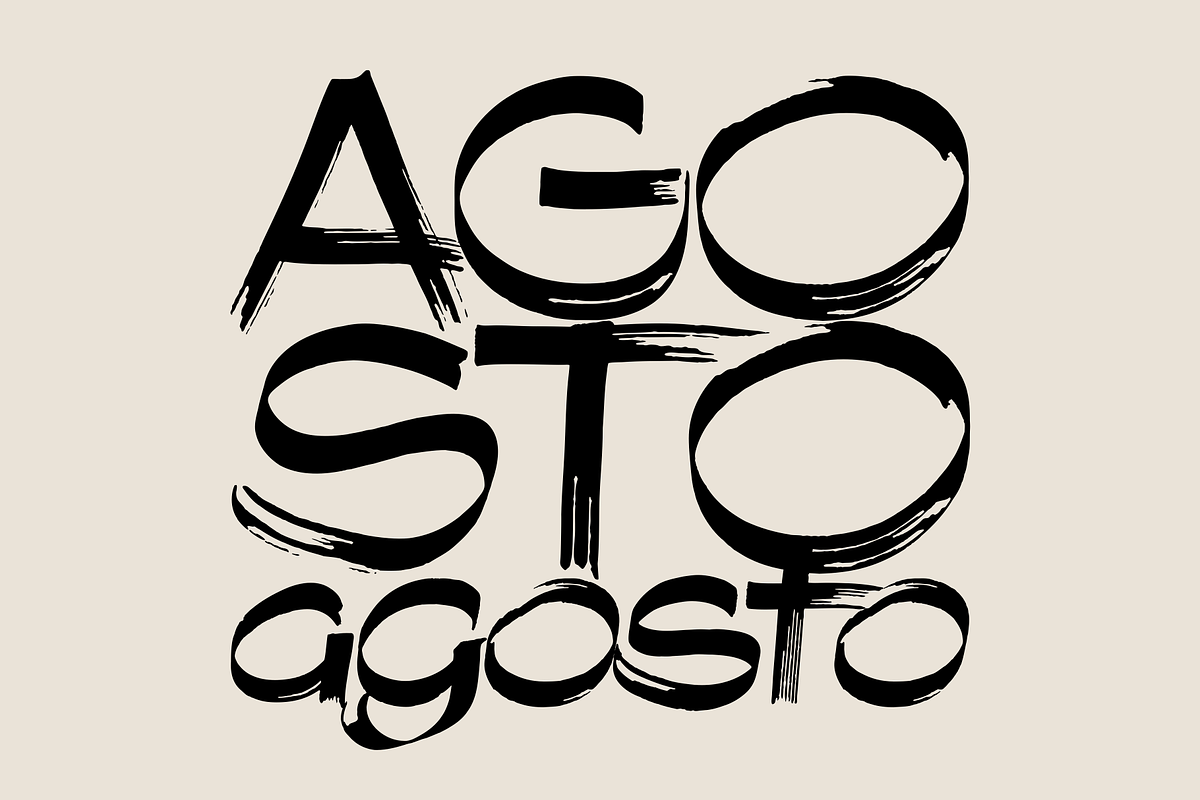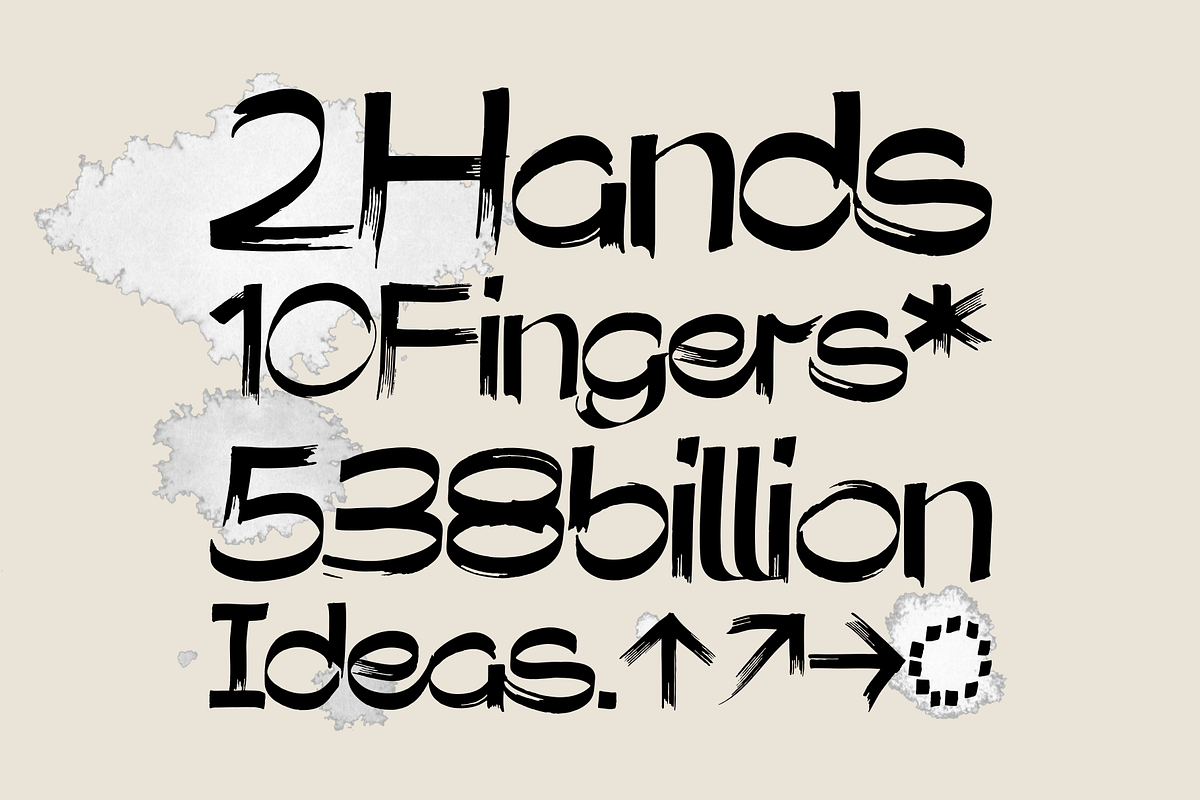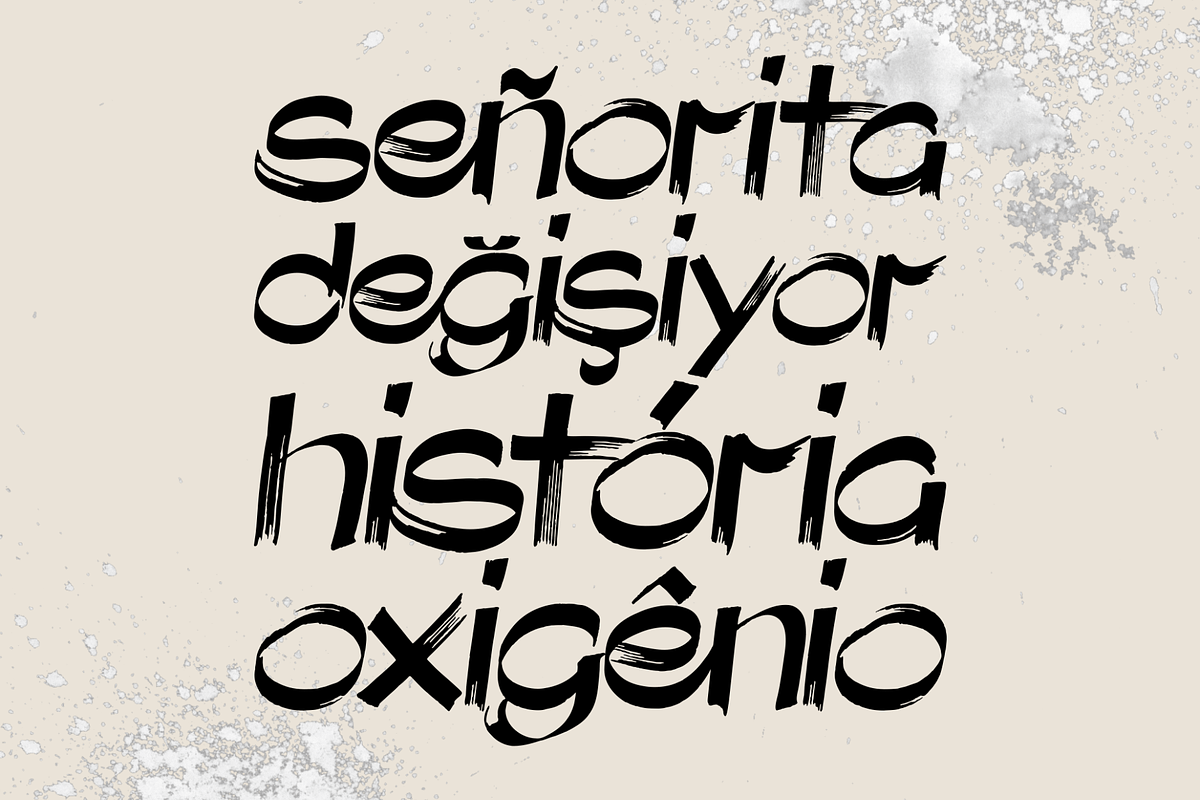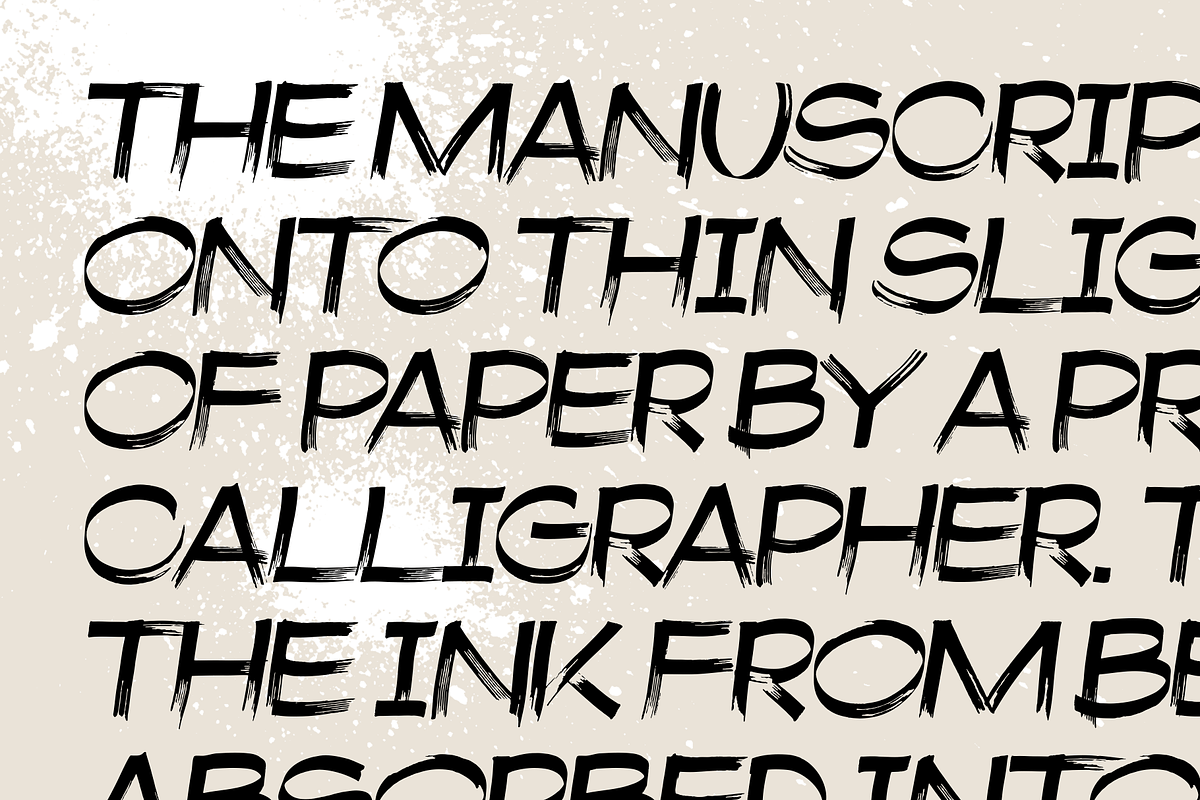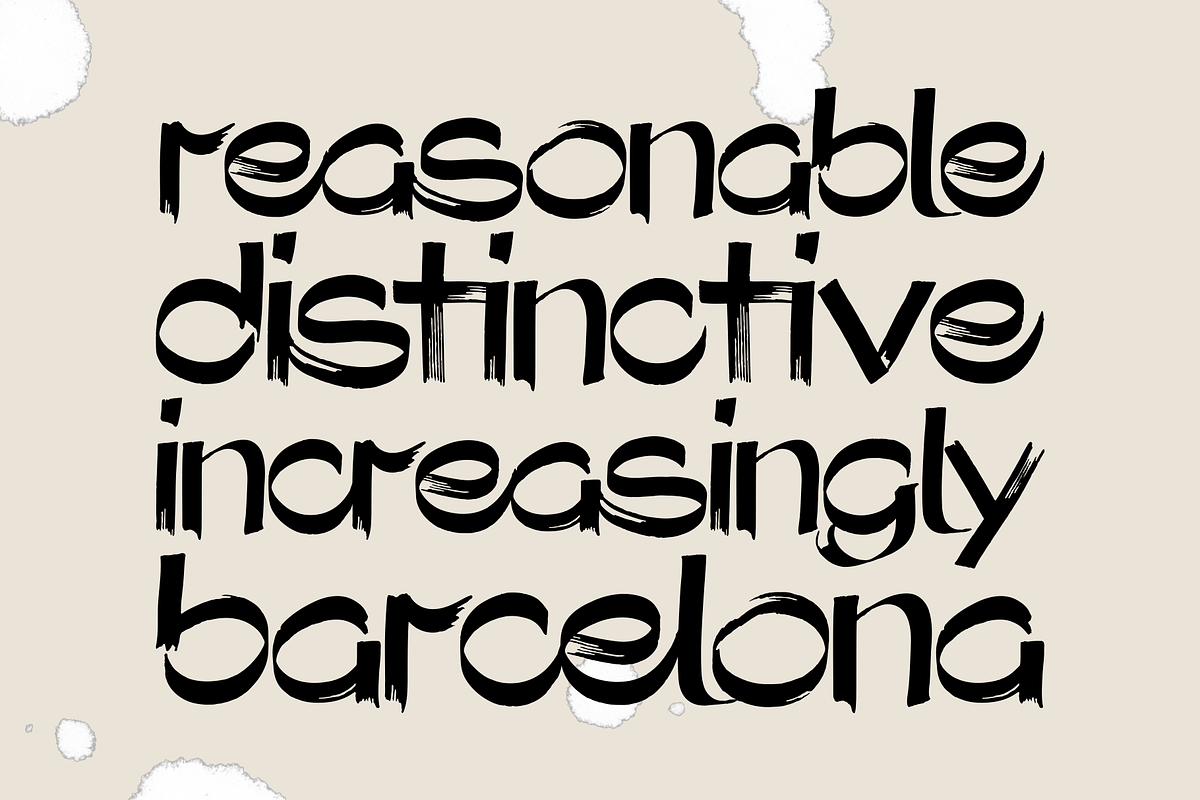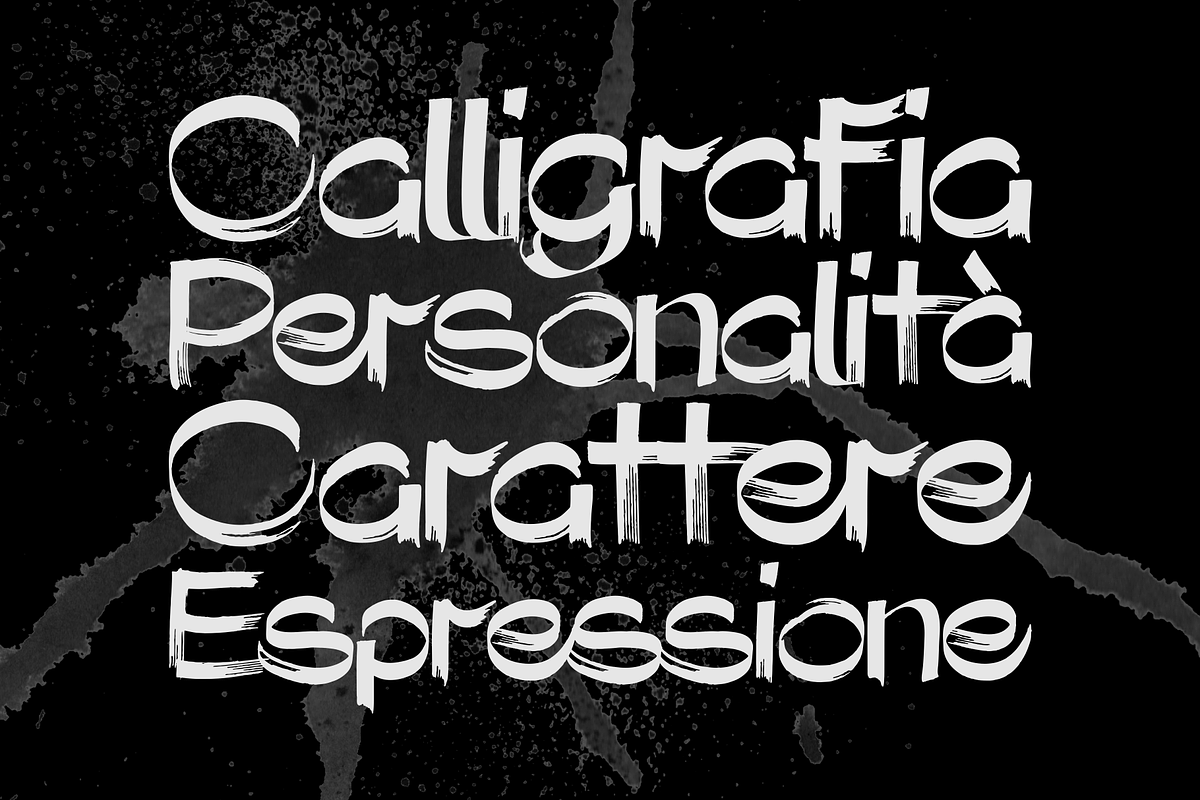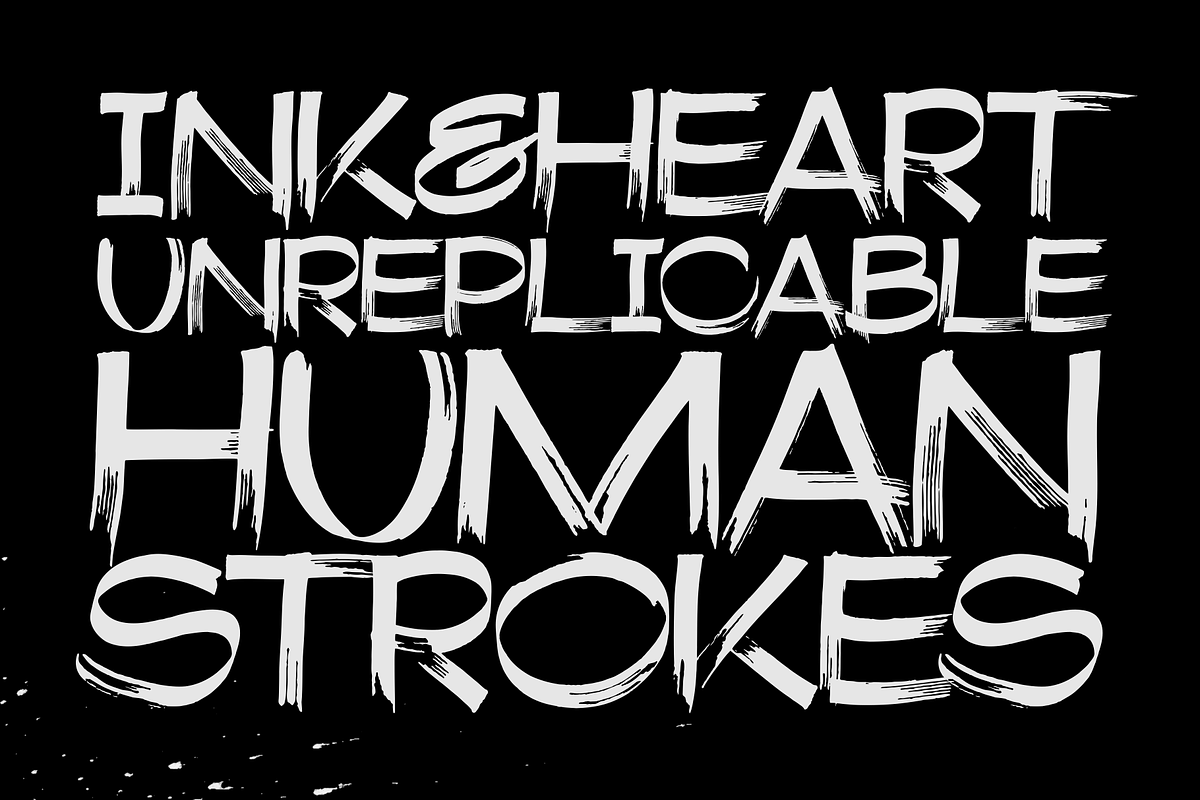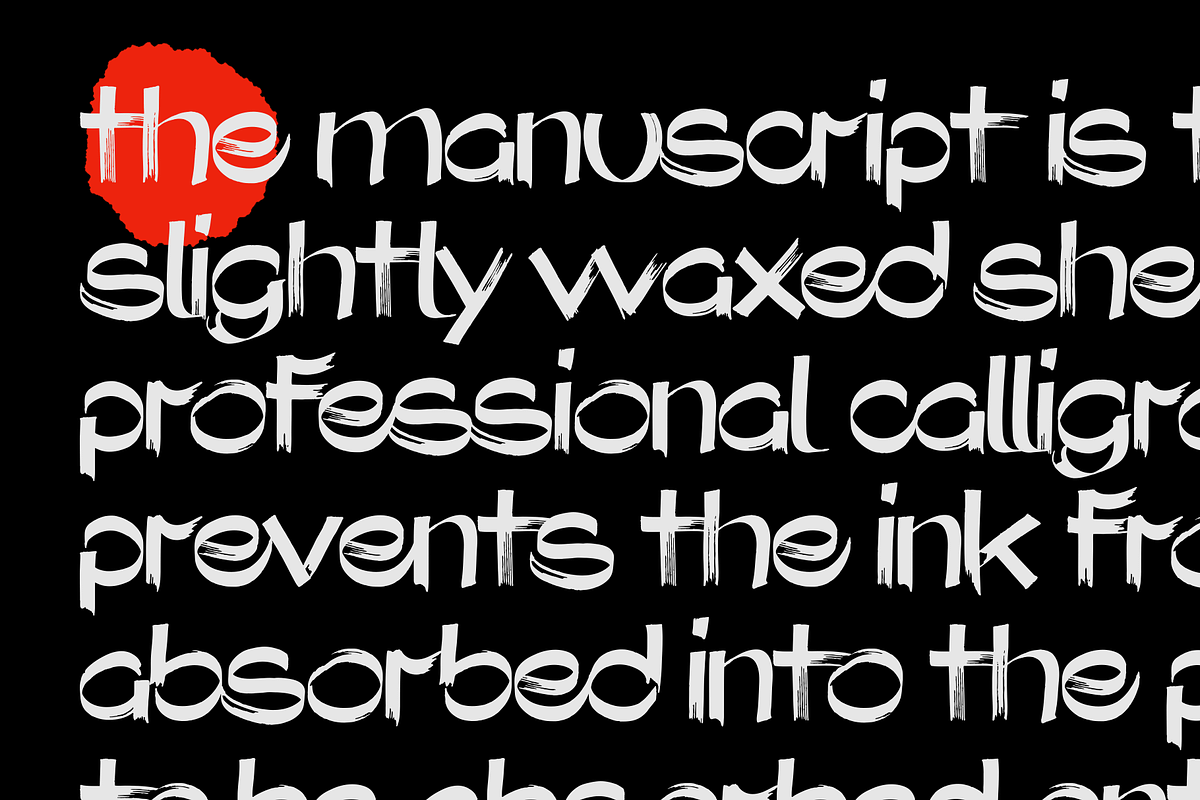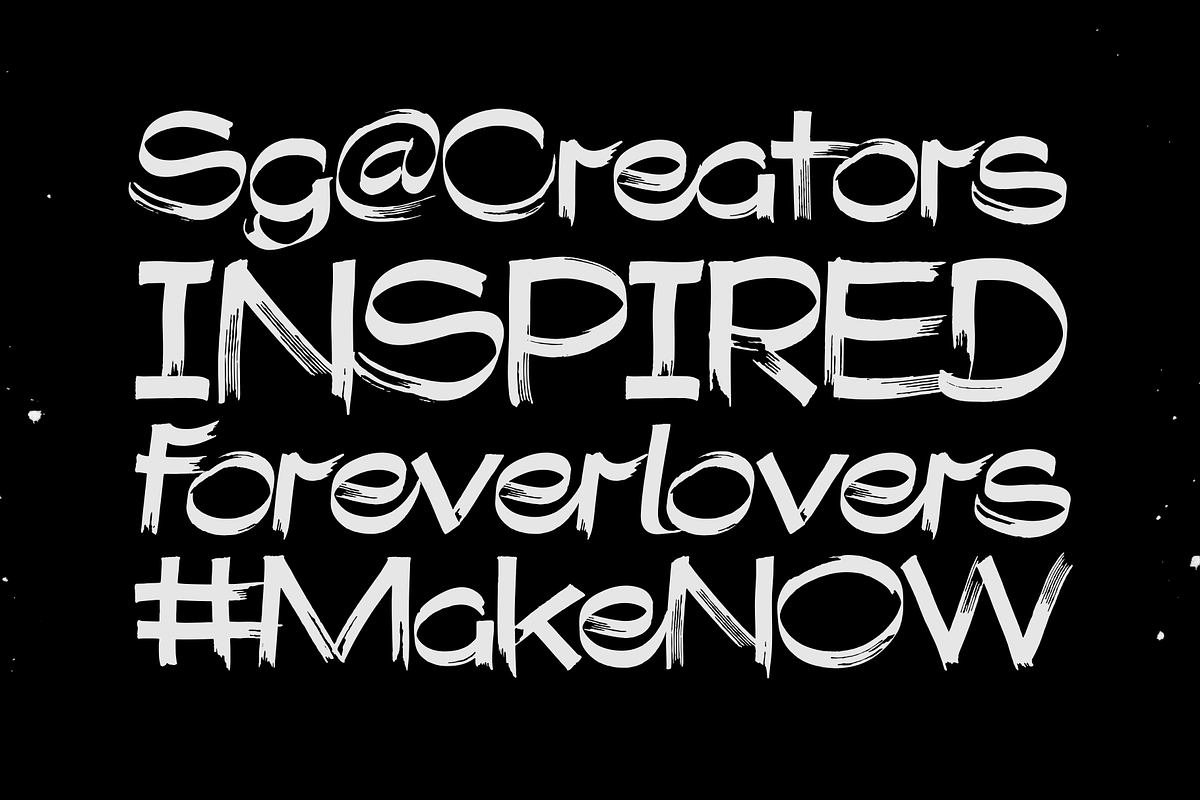
Agosto – Font Kit
Agosto is a font kit created by Stefano Giliberti. It is a font family that supports 118 languages, features a total of 510 glyphs and includes an italicized version. It is a set of ink spray and drops graphics resulting from the drawing of the font — 20 transparent high-resolution images available in 3 versions.
• 118 Languages • 510 Glyphs • Italicized • 20 Ink Graphics